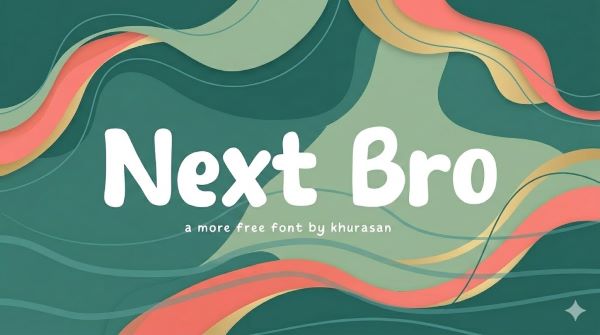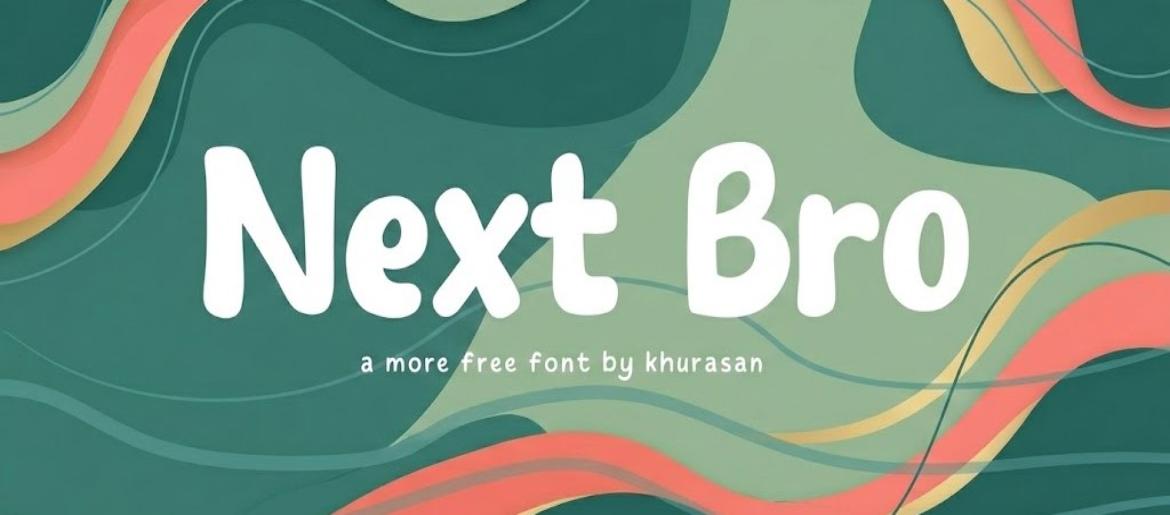
Next Bro Font
Next Bro is a cheerful handwritten font by Syafrizal a.k.a. Khurasan, crafted to evoke the friendly, loose energy of comic book lettering. Each character carries a carefree, hand-drawn quality — the kind of warmth that makes text feel approachable rather than formal. It’s an ideal choice for comic captions, children’s book illustrations, quirky branding, and any project that benefits from a light-hearted, approachable personality. The font’s casual charm translates well across posters, social media content, and packaging with a playful edge. Free to use for personal and commercial projects.